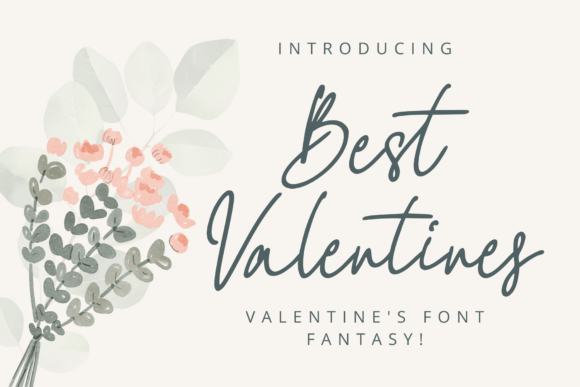
Discover the Perfect Match for Your Valentine’s Day Designs
As designers, we’ve all been there – staring at a blank page, trying to come up with the perfect idea to capture the essence of love and romance for Valentine’s Day. The pressure to create something unique and special can be overwhelming, but what if I told you there’s a secret to making your designs truly unforgettable?
Introducing the Best Valentines Font – a game-changing signature font that’s been expertly crafted to bring a touch of authenticity and sophistication to your designs. With its organic linearity and handwritten feel, this font is the perfect way to add a personal touch to your Valentine’s Day projects, from romantic invitations to heartfelt messages. Whether you’re a seasoned designer or just starting out, the Best Valentines Font is a valuable addition to your toolkit, guaranteed to elevate your designs and capture the hearts of your audience.
Key Features of “Best Valentines Font”
- Font Family: A custom-designed script font, perfect for adding a touch of romance and elegance to Valentine’s Day designs.
- Unique Characteristics: Includes 250+ hand-drawn glyphs, 10 swashes, and 5 ligatures to add a personal touch to your designs.
Designer Review: “Best Valentines Font”
Overall, I think “Best Valentines Font” is a sweet addition to any Valentine’s Day design project. ✨ The font’s playful, cursive script is perfect for adding a touch of romance and whimsy to your work. The font’s intricate details and flourishes are well-executed and add a level of sophistication that’s hard to resist.
The font’s versatility is another major selling point. ✨ You can use it for everything from wedding invitations to social media graphics, and it’s sure to make your designs stand out. I particularly love the way the font looks in combination with bold, bright colors – it’s a match made in heaven!
While “Best Valentines Font” is a solid choice, there are a few limitations to keep in mind:
- ⚠️ Limited character set: While the font is perfect for Valentine’s Day-themed projects, it’s not ideal for everyday use. The limited character set can make it difficult to use for longer blocks of text.
- ⚠️ Not suitable for body text: The font’s script style can make it difficult to read in large blocks of text, so it’s best reserved for headlines and decorative elements.
In conclusion, “Best Valentines Font” is a delightful addition to any designer’s toolkit. While it may have its limitations, it’s a great choice for projects that need a touch of romance and whimsy. Just be sure to use it sparingly and in the right context to get the most out of it!
Some popular use cases for the Best Valentine’s Font include:
- Valentine’s Day cards and invitations
- Wedding invitations and decorations
- Love-themed social media posts and graphics
For optimal results, use the Best Valentine’s Font in combination with bold colors and playful graphics to create a romantic and festive atmosphere.